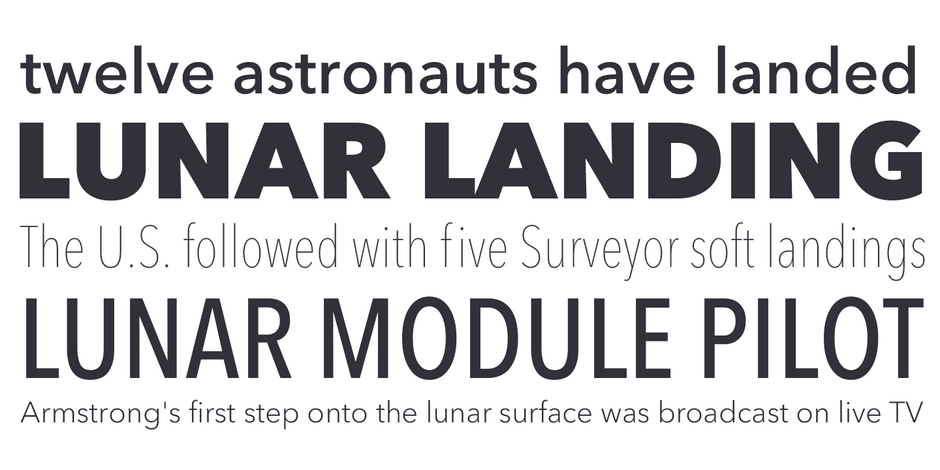
FOUNDRY: Linotype
DESIGNERS: Adrian FrutigerAkira Kobayashi
CLASSIFICATION: Geometric Sans
ABOUT THE FAMILY:
“When creating the Avenir® typeface, Adrian Frutiger drew inspiration from the past and the future. His goal was to modernize the geometric sans serif styles of the early 20th century, while embodying the aesthetics of the 21st century. In the process, Frutiger also infused a touch of organic humanism into the design.
WHAT TO LOOK FOR:
• Typefaces that contrasts with, or serve as a counterpoint to, Avenir Next
• Slab or Clarendon typefaces with subtle to overt humanistic overtones
• Transitional typeface designs like Monotype Baskerville™ or slab serif fonts, like Rockwell® Nova
• Avoid sans serif fonts but, some square sans, like Cachet™ and DIN® Next will pair reasonably well with Avenir Next